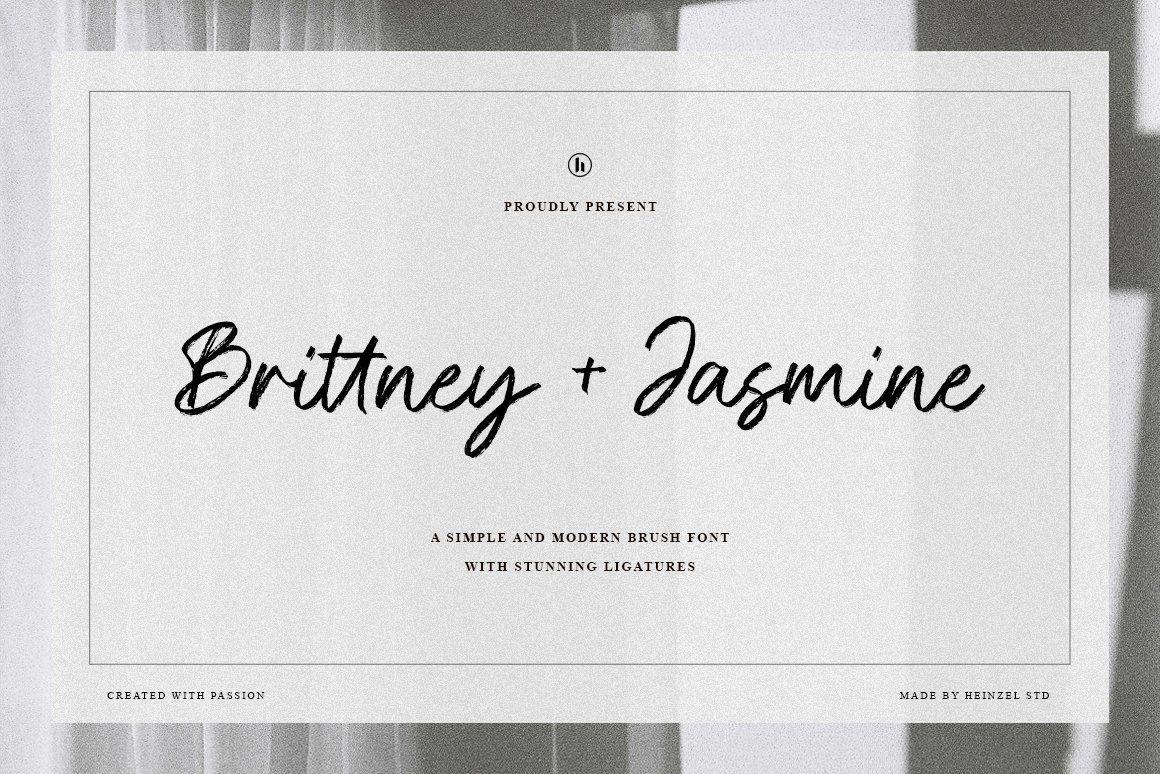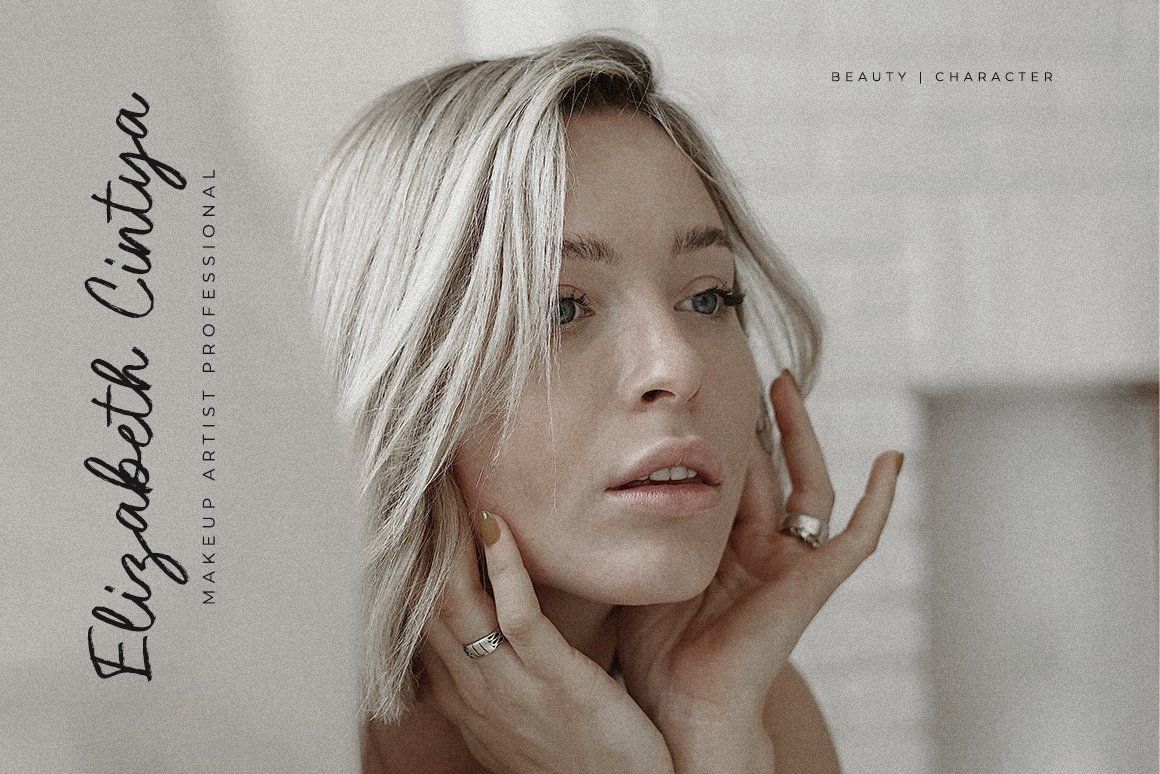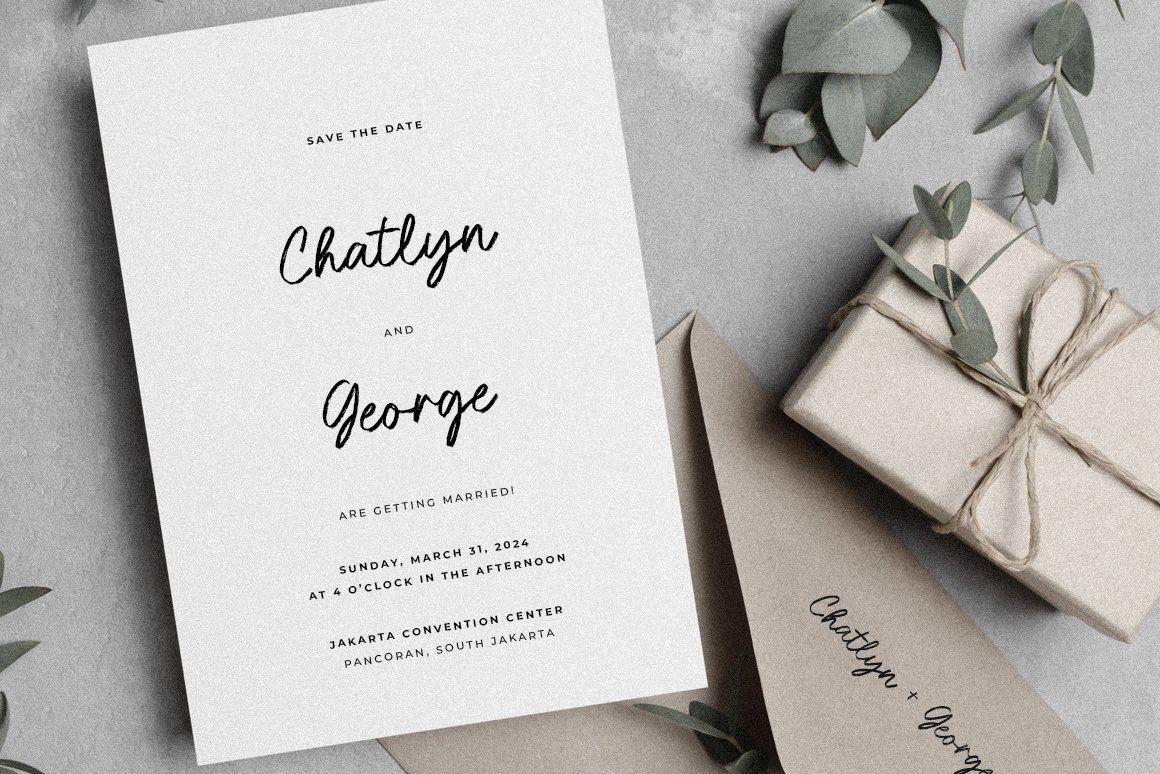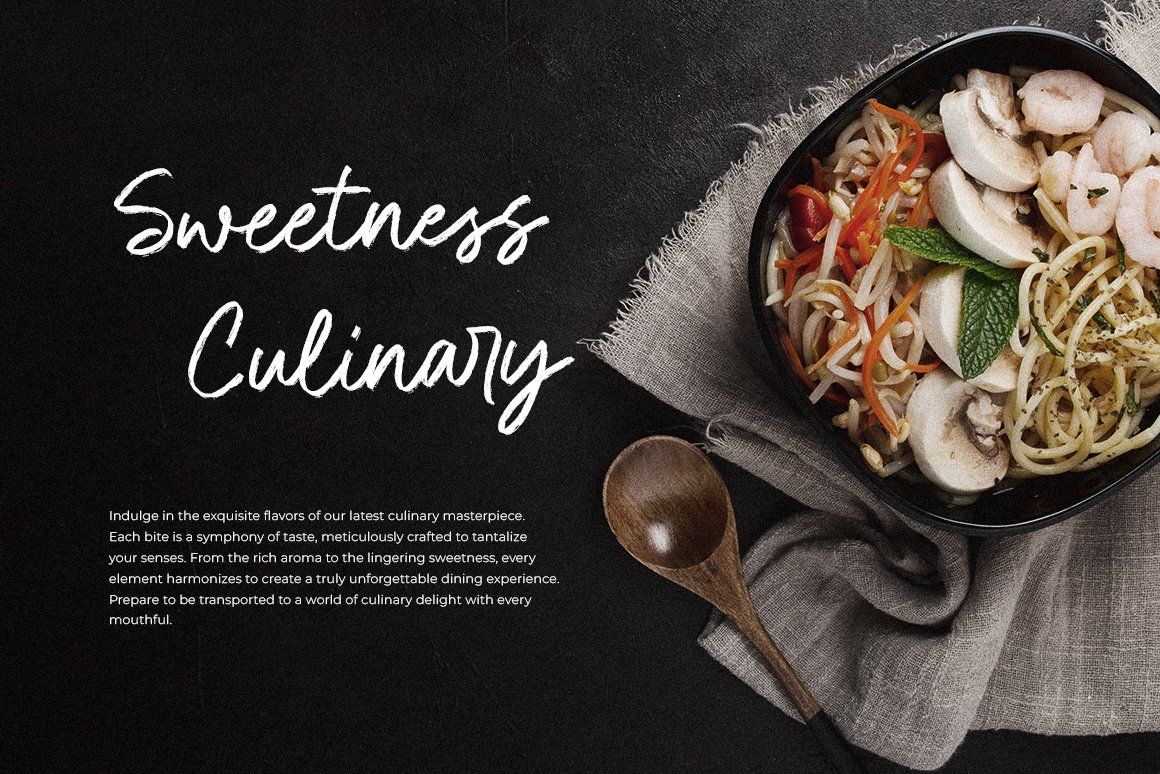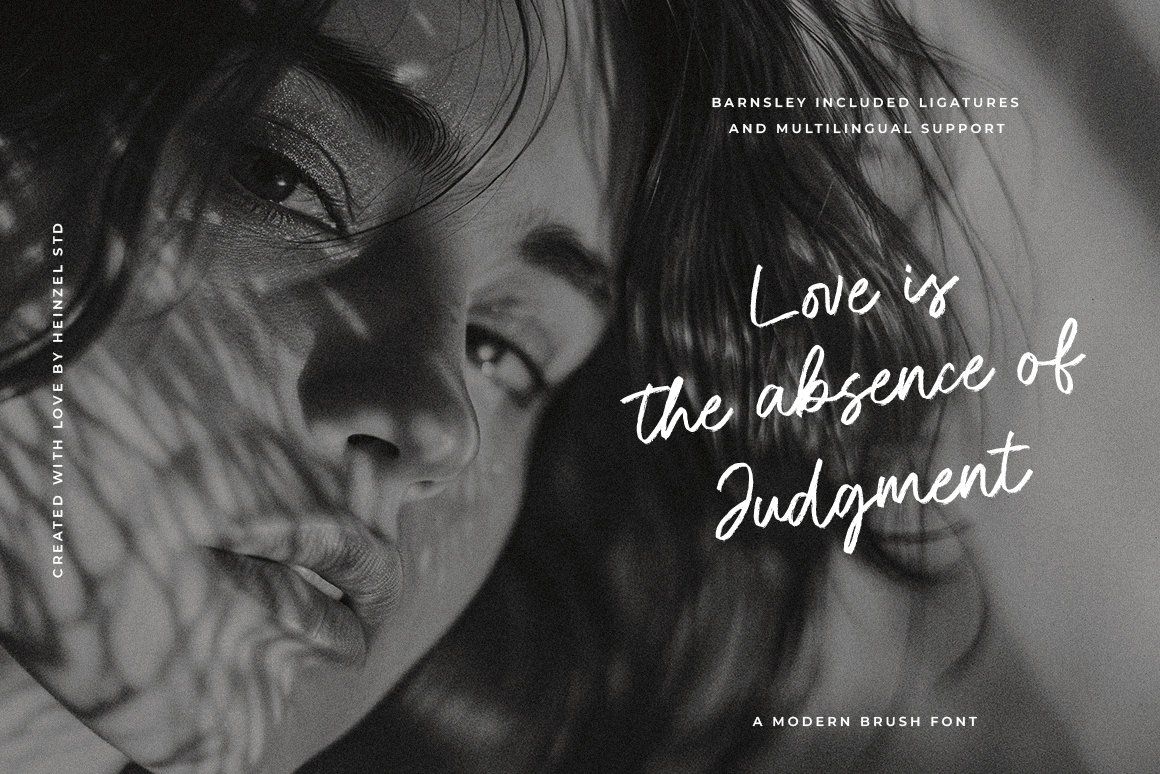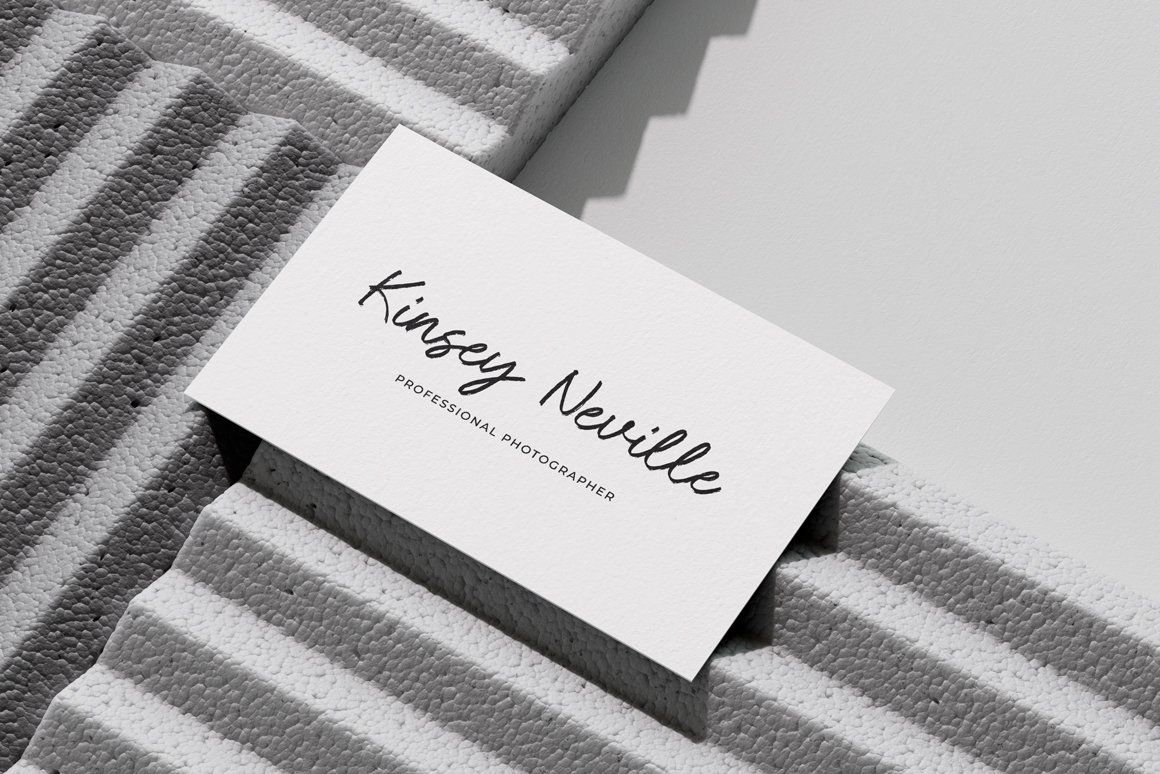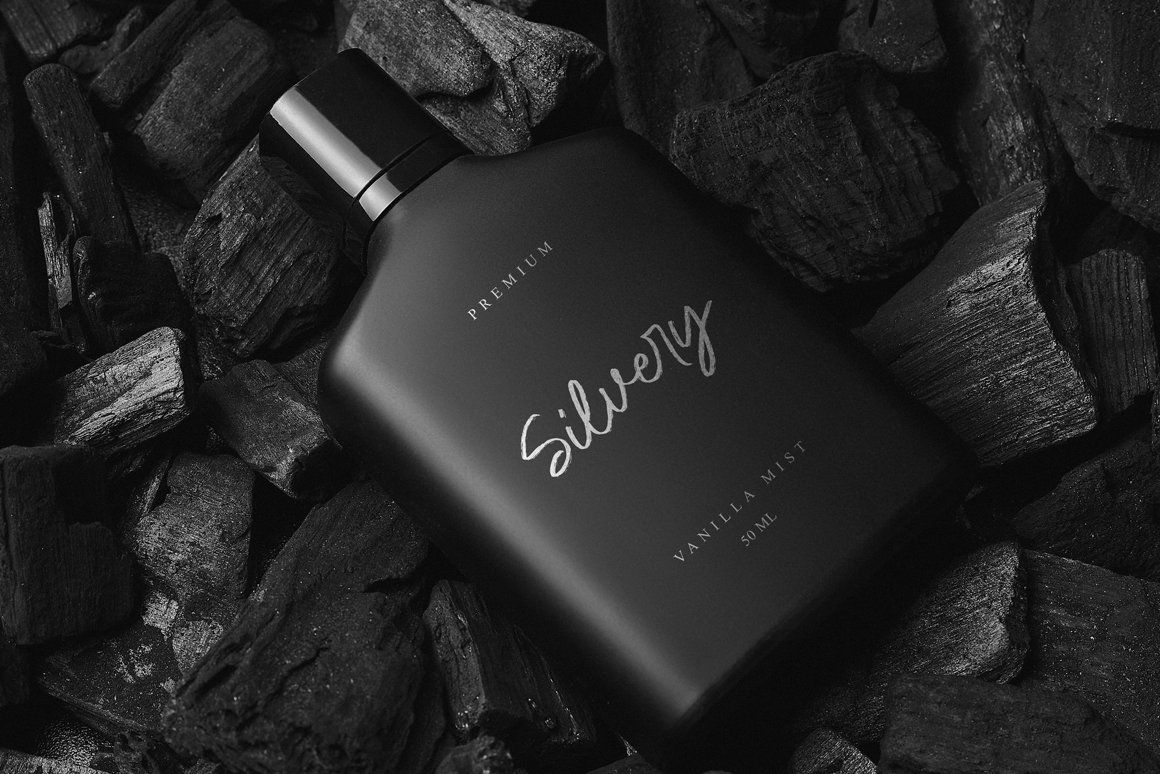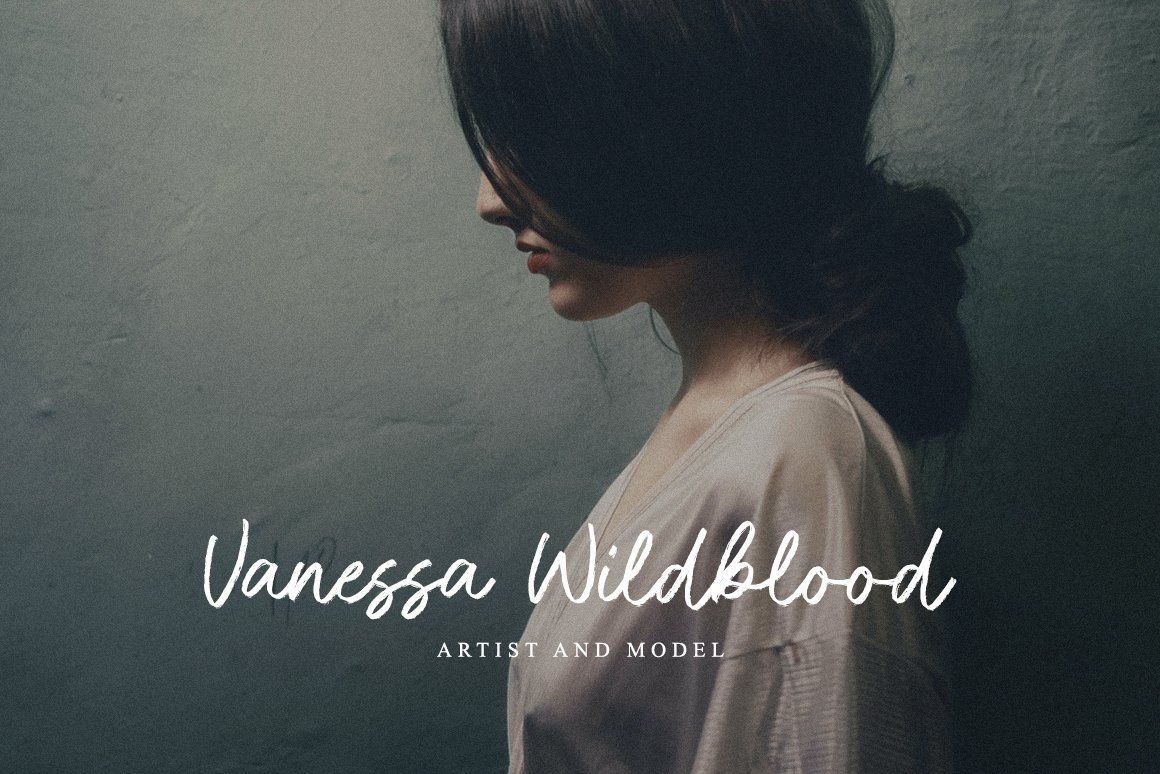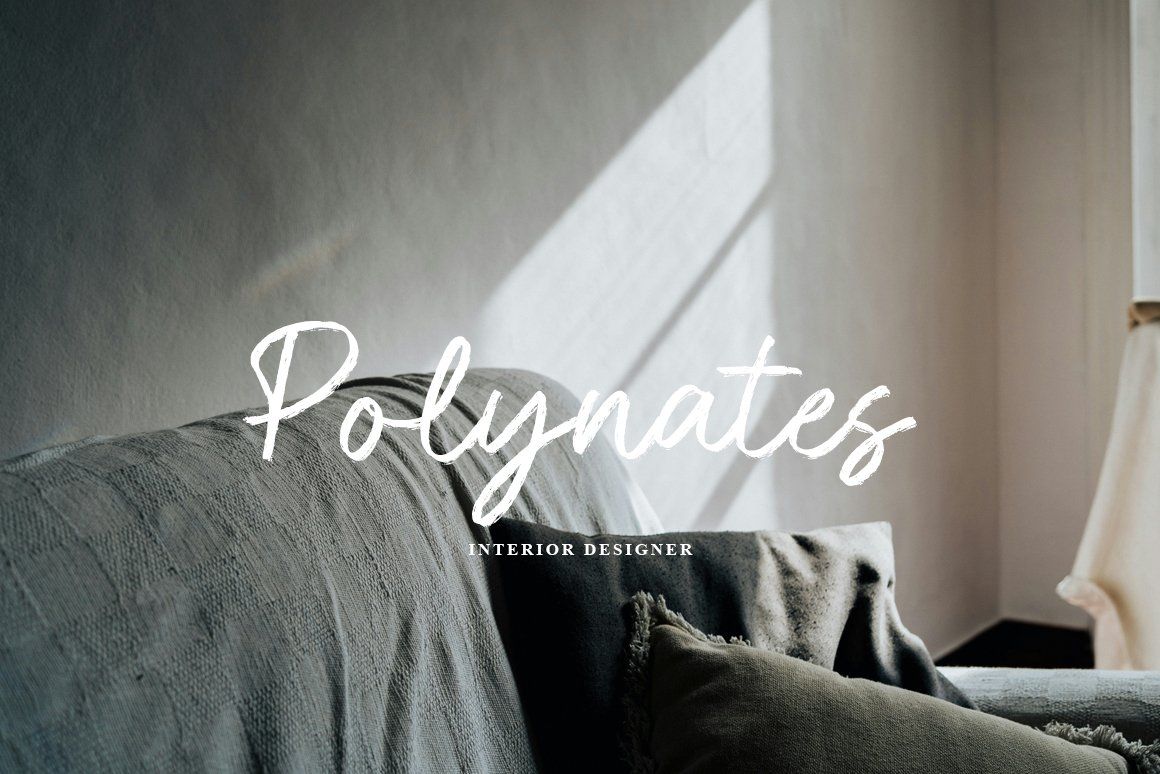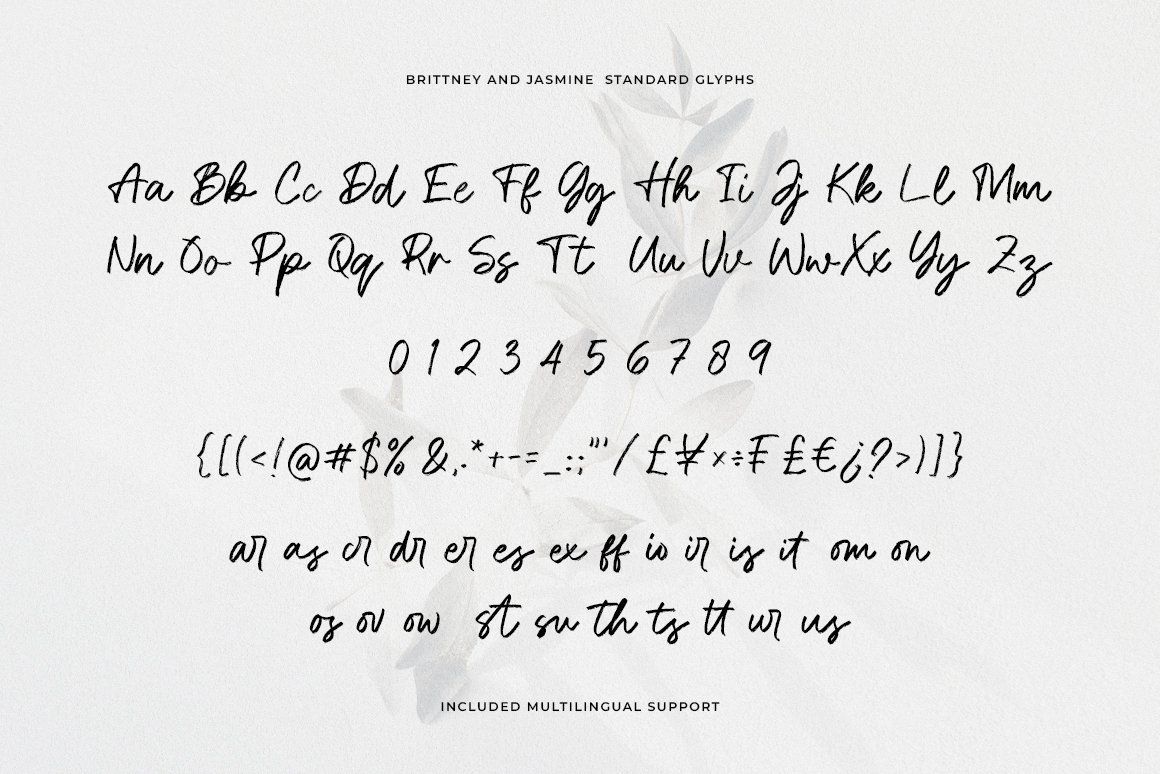
Brittney and Jasmine is a modern brush script font designed with a natural handwritten feel and elegant flowing strokes. Featuring stylish ligatures and smooth brush textures, this font delivers an authentic signature look that feels both artistic and contemporary. Perfect for branding, wedding invitations, social media graphics, logos, packaging, photography watermarks, fashion editorials, and feminine design projects.
The expressive brush lettering creates a beautiful balance between casual charm and modern sophistication, making Brittney and Jasmine ideal for designers who want a personal and stylish touch. Its handcrafted details and fluid curves help every word stand out with elegance and creativity.
Whether you are creating romantic branding, luxury packaging, stylish quotes, or Instagram content, Brittney and Jasmine adds a trendy handwritten aesthetic that feels premium and professional.